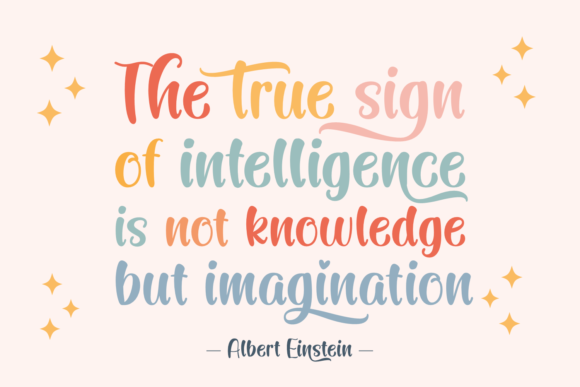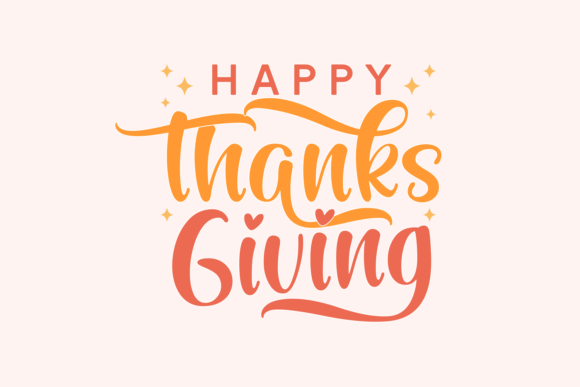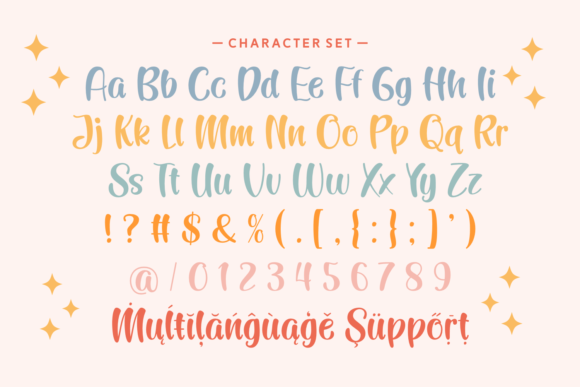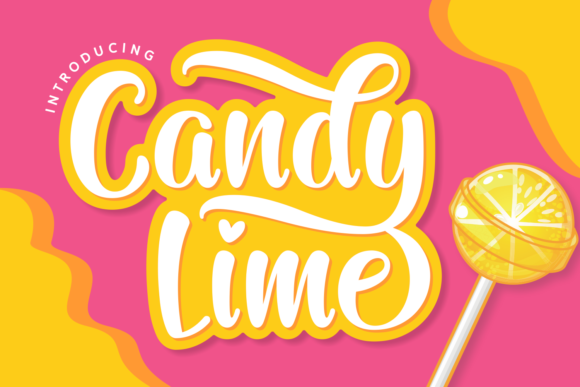
The Sweet Taste of Creativity: Introducing the Candy Lime Font
Have you ever found yourself rummaging through your stash of colored pens, searching for the perfect shade of yellow to bring a design to life? Or perhaps you’ve spent hours agonizing over the perfect handwritten font to give your project a personal touch? We’ve all been there – searching for that elusive spark of creativity that makes our designs truly special.
Enter the Candy Lime Font, a sweet and cursive handwritten font that’s as delightful as it is versatile. With its gentle curves and playful flair, this font is the perfect addition to any design project. Whether you’re a seasoned pro or just starting out, the Candy Lime Font is a valuable asset in your creative toolkit – and with its PUA encoding, accessing all of its glyphs and swashes is a breeze.
Candy Lime Font Key Features
- Size: The font comes in a single weight, making it easy to use in various design contexts. The font size is scalable, allowing for flexibility in font sizes from 8 to 72 points.
- Resolution: The Candy Lime Font is optimized for high-resolution displays, making it ideal for use in digital design, including web design, mobile apps, and social media graphics.
- Unique Characteristics: The Candy Lime Font features a unique, hand-drawn design with a playful and whimsical feel. Its distinctive letterforms and subtle texture add a touch of personality to any design project.
- Language Support: The font supports a wide range of languages, including Latin, Cyrillic, and Greek alphabets, making it a versatile choice for designers working on multilingual projects.
Candy Lime Font Review
When I first laid eyes on the Candy Lime Font, I couldn’t help but feel a rush of excitement. The ✨ vibrant colors and playful vibe instantly caught my attention, and I was eager to dive in and see what it had to offer.
One thing that really works well for this font is its ✨ versatility. It’s perfect for creating fun, eye-catching headings and titles, and its whimsical feel makes it a great choice for designs that need a bit of personality. I also appreciate how well the font scales, looking great both large and small.
Another benefit of the Candy Lime Font is its ✨ accessibility. It’s easy to use, even for designers who aren’t super familiar with font customization. Plus, it’s available in a range of weights and styles, making it a great choice for projects that require a bit of depth.
- ⚠️ The font can be a bit overwhelming if used too extensively. It’s best to use it in moderation to avoid visual fatigue.
- ⚠️ Some users may find the font’s playful feel to be too juvenile or unprofessional for certain projects.
Overall, I’d say the Candy Lime Font is a solid choice for designers looking to add some fun and personality to their projects. While it may have some limitations, its versatility and accessibility make it a great addition to any design toolbox.
Candy Lime Font: A Practical Application Guide
Getting the Most Out of Candy Lime Font